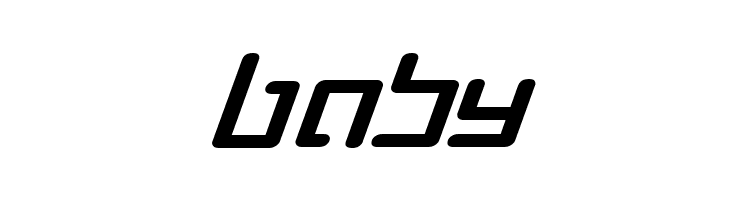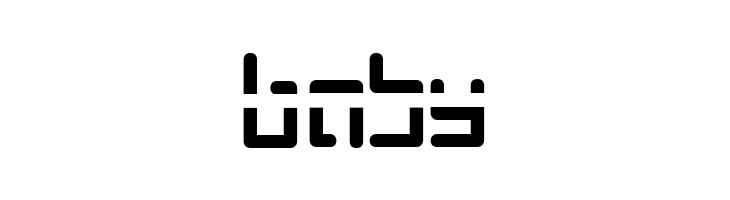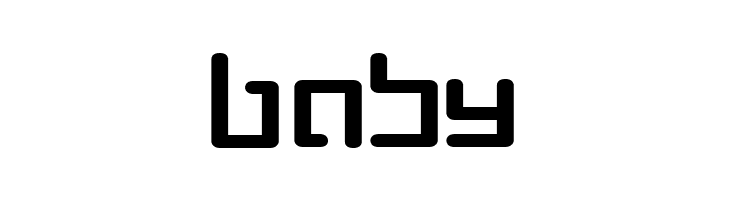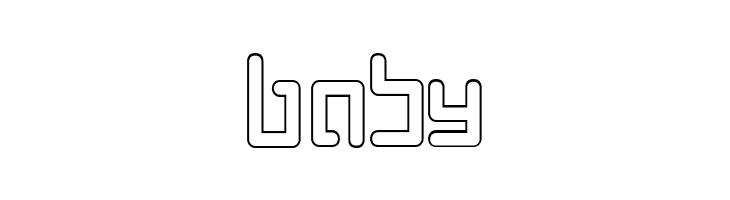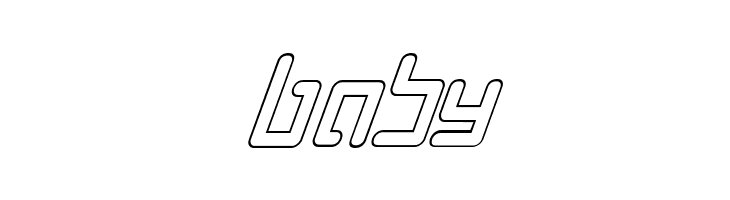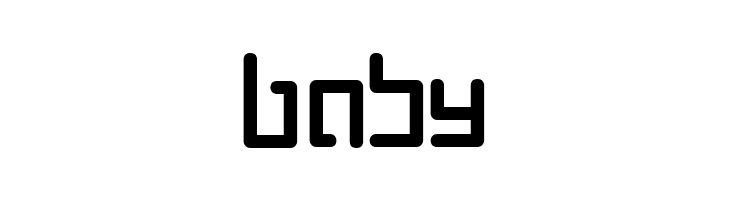
Tecno Extrema Font
- Font: Tecno Extrema
A modern, expanded, and italicized font with a sleek, futuristic design.
A modern, condensed italic font with sleek, angular characters.
A futuristic, geometric font with a blocky, modular design.
A modern, geometric font with bold, rounded rectangular characters and consistent stroke width.
A modern, geometric outline font with a clean and structured design.
A modern, italicized outline font with a futuristic and geometric style.
A modern, geometric font with consistent stroke widths and rounded corners.